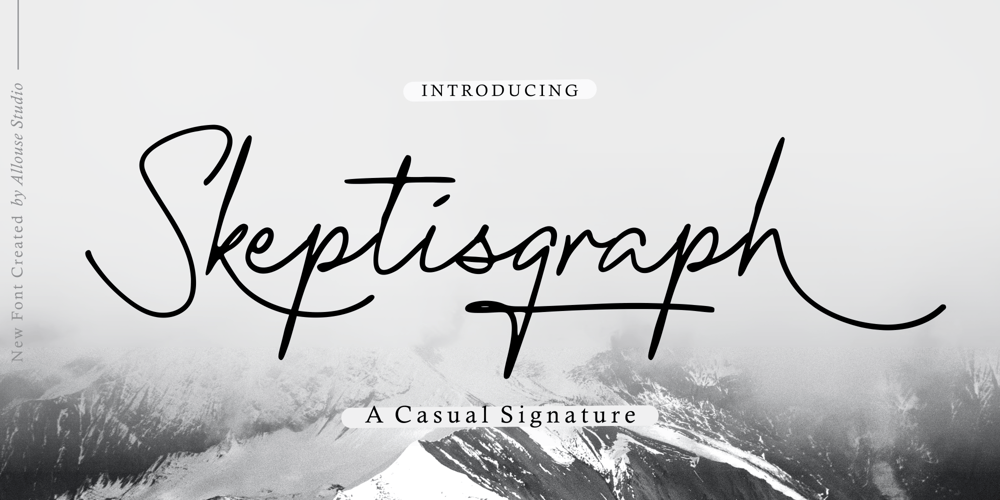
Skeptisgraph
Skeptisgraph font
Skeptisgraph Font Family was designed by Fachrizal Yusuf and published by Allouse Studio. Skeptisgraph contains 1 styles and family package options. Proudly Present, Skeptisgraph A Casual Signature FontSkeptisgraph is perfect for any titles, logo, product packaging, branding project, megazine, social media, wedding, or just used to express words above the background.Skeptisgraph also come with Multi-Lingual Support.Enjoy the font, feel free to comment or feedback, send me PM or email. Thank You!